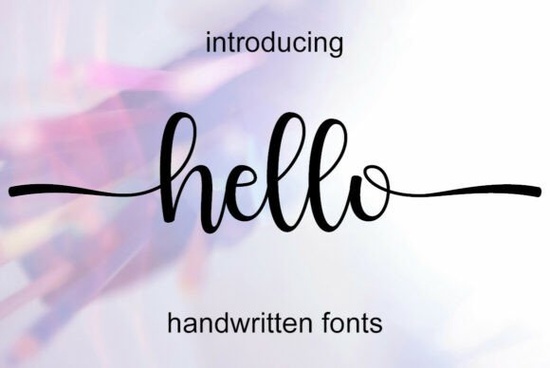
Looking for a font that adds a warm, personal touch to your designs? The Hello Font is a great choice for anyone who wants to bring a soft, handwritten feel to their projects. With its cursive style and gentle curves, this font works well in many creative applications. Whether you're designing for weddings, branding, or social media, Hello Font can help make your work stand out.
The Hello Font is especially useful for designers who want to add a romantic or nostalgic vibe to their work. It’s ideal for wedding invitations, greeting cards, and branding materials where a friendly, personal tone is important. Its readability makes it suitable for both digital and print use, so you can apply it to everything from social media posts to product packaging.
One of the key benefits of Hello Font is its versatility. It works well with a variety of design styles, from minimalist to more elaborate layouts. You can pair it with other fonts to create a balanced look, or use it on its own for a clean and elegant appearance. This makes it a valuable addition to any designer’s toolkit.
What Makes Hello Font Stand Out?
Hello Font stands out because of its natural, handwritten feel. Unlike some more rigid script fonts, this one feels more organic and expressive. It’s perfect for projects that need a personal touch, such as custom stationery, logos, or marketing materials. The font also includes a range of characters, making it easy to use in different languages and contexts.
Best Uses for Hello Font
There are many ways to use Hello Font depending on your project. Here are a few common applications:
- Wedding Invitations: Add a romantic and elegant feel to your event materials.
- Branding: Use it for logos, business cards, or website headers to create a friendly brand image.
- Greeting Cards: Perfect for birthdays, thank-you notes, or holiday cards.
- Marketing Materials: Ideal for promotional banners, social media graphics, or email newsletters.
Its soft appearance also makes it a good fit for fashion and lifestyle branding. You can use it on t-shirts, packaging, or online store titles to give your brand a more personal and approachable look.
How to Get the Most Out of Hello Font
To get the best results with Hello Font, consider the following tips:
- Pair it with a sans-serif font: This creates a nice contrast and improves readability.
- Use it for headlines: It works well for titles, headings, and short phrases.
- Experiment with sizes: Larger sizes can add emphasis, while smaller sizes are great for captions or body text.
Remember to test the font in different contexts to see how it looks on various backgrounds and formats. This will help you make the most of its unique style.
Whether you're a designer, craftsperson, or small business owner, Hello Font is a great tool to have in your collection. Its friendly and elegant style makes it suitable for a wide range of uses, and its ease of use ensures that you can apply it quickly and effectively.